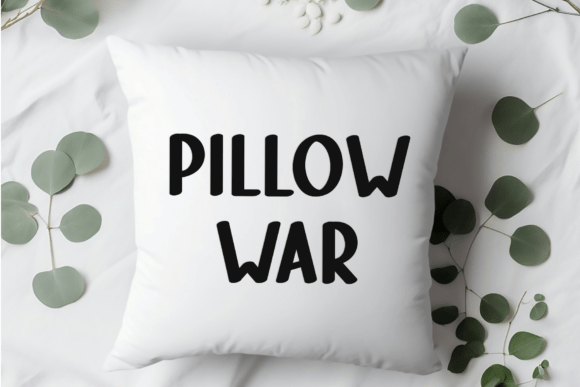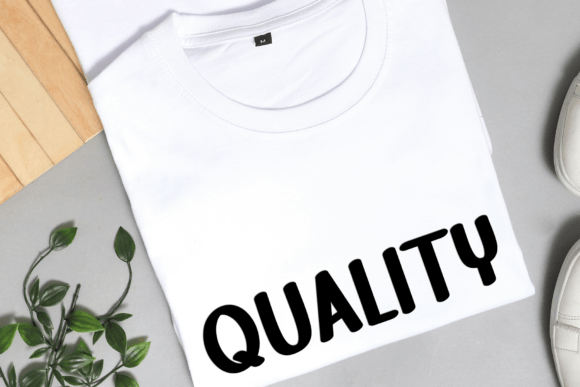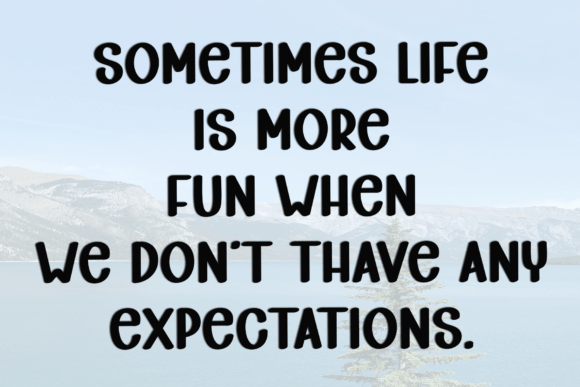
The Daily Action Font: A Game-Changer for Designers and Crafters
Have you ever been in the middle of a design project, and suddenly, you just can’t seem to find the right font? I recall a particularly frustrating experience when a client requested a unique, eye-catching font for their branding project. After hours of scouring the internet, I stumbled upon the Daily Action font, and it completely transformed my design. In this article, I’ll share my experience with this beautiful font, its features, and how to make the most of it in various design applications.
A Personal Review of Daily Action Font
I’m excited to share my honest review of the Daily Action font, and what I love about it:
- ✨ Unique and eye-catching design: The Daily Action font boasts a soft, distinctive touch that sets it apart from other fonts.
- ✅ Versatility: Its natural style makes it perfect for a wide range of design projects, from crafts to creative works.
- 🎨 Variety of characters: The font offers a range of characters, making it ideal for design projects that require a bit of flair.
While I adore the Daily Action font, there are a few minor quirks to be aware of:
- 🤔 Limited availability of certain characters: Some special characters might not be available, but this is relatively rare.
The Designer Inspiration Behind Daily Action Font
The Daily Action font was designed with the intention of creating a unique and eye-catching typeface that would inspire creativity and self-expression. The designer aimed to craft a font that would be both beautiful and functional, making it perfect for a wide range of design projects.
| What is the Daily Action font? | The Daily Action font is a beautiful and eye-catching typeface designed with a soft, unique touch. |
In conclusion, the Daily Action font is a versatile and eye-catching typeface that’s perfect for designers, crafters, and creative hobbyists. With its unique design, compatibility with various applications, and OpenType features, it’s an excellent addition to any design project.